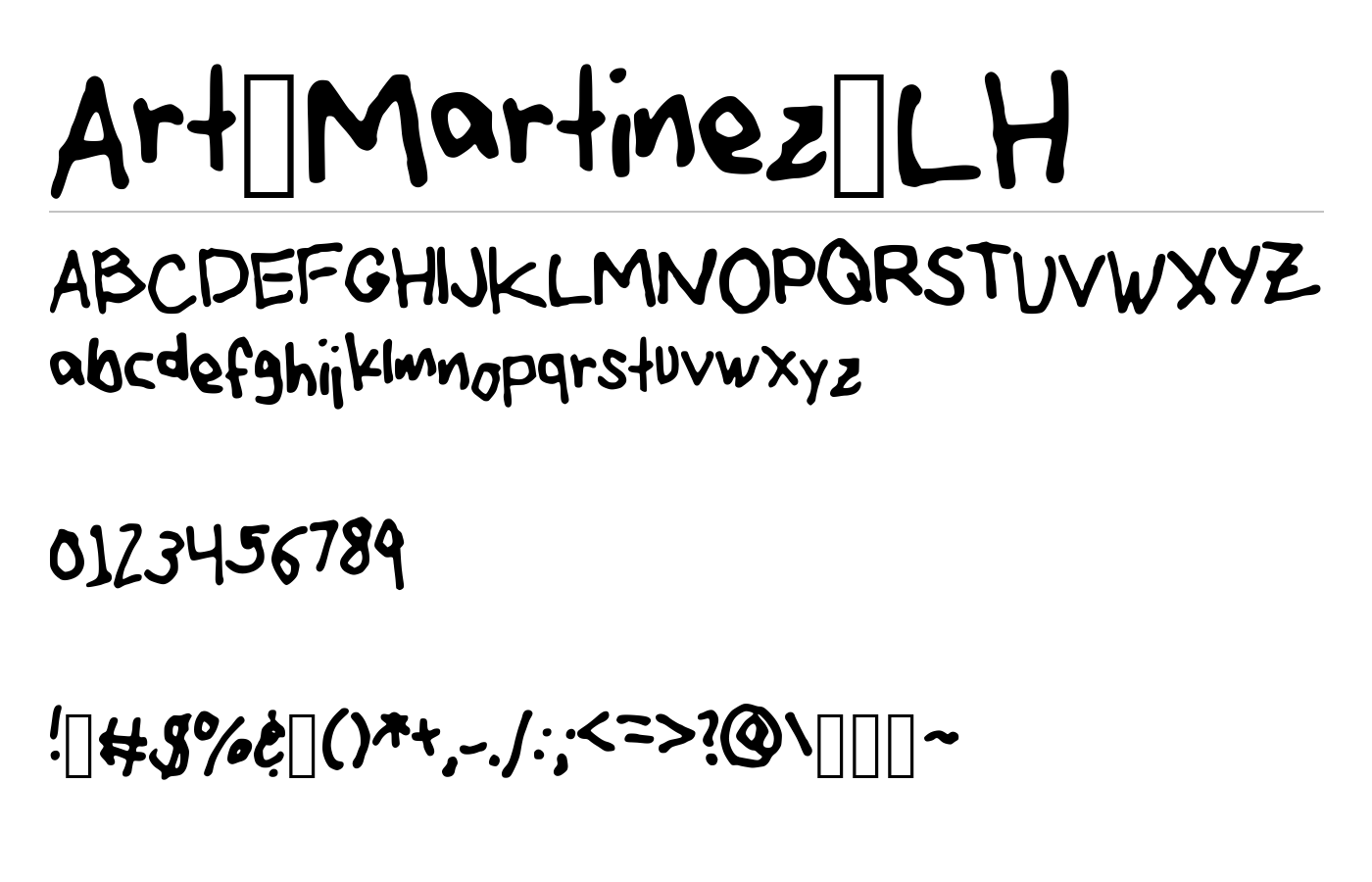
Art_Martinez_LH is a playful and casual handwritten font with an informal, organic feel. Its irregular, lively strokes and loose letterforms create a friendly and approachable vibe, making it perfect for creative projects, children’s content, or anything that aims to convey warmth and personality. This font works best in headlines, logos, and designs where a hand-crafted, fun aesthetic is desired.
Art_Martinez_LH Font
About Art_Martinez_LH Font